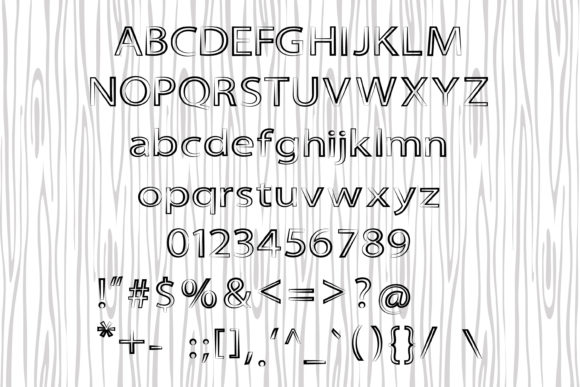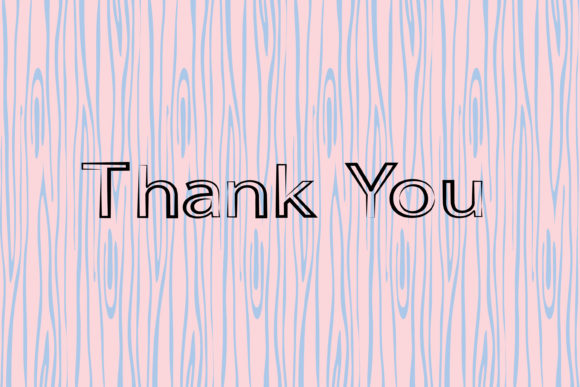
Introduction to Dhenary Font
Have you ever been working on a creative project, staring at a blank canvas, and suddenly an idea strikes you? The excitement is palpable, and you can’t wait to bring your vision to life. As designers, we’ve all been there, and the right font can make all the difference. That’s where the Dhenary Font comes in – a stunning, outlined display font that’s sure to elevate your designs.
Whether you’re working on a poster, flyer, or print project, the Dhenary Font is a valuable resource for any designer. Its high quality and sleek design make it perfect for a wide range of creative applications, from advertising to event promotion. And with a transparent background, you can easily layer it over any image or color scheme, giving you endless possibilities for customization.
Key Features of Dhenary Font
- High-quality design resource suitable for creative projects, offering a unique and elegant style.
- Comes with a transparent background, allowing for seamless integration into various design applications.
- Designed with a high resolution of 300 DPI, ensuring crisp and clear text rendering.
- Unique characteristics include a modern aesthetic and a wide range of glyphs, making it ideal for various design projects.
Honest Review: Dhenary Font
As a designer, I’m always on the lookout for high-quality design resources to elevate my creative projects. The Dhenary Font has caught my attention, and I’m excited to share my thoughts.
- ✨ Beautiful, elegant design that adds a touch of sophistication to any project
- ✨ Clear, easy-to-read font that’s perfect for body text or headings
- ⚠️ Limited character set, which may not be suitable for complex or technical projects
- ⚠️ No transparent background option, which may require additional design work to achieve the desired effect
Overall, the Dhenary Font is a solid choice for designers working on creative projects that require a touch of elegance and sophistication. While it may not be the best fit for every project, it’s definitely worth considering for those who want a high-quality, free font that’s easy to use.
Common Use Cases for the Dhenary Font
The Dhenary Font is ideal for use in presentations, documents, and marketing materials. Its high-quality design and transparent background make it perfect for use on any background.